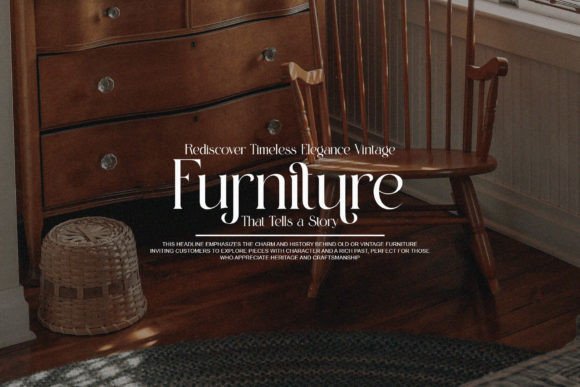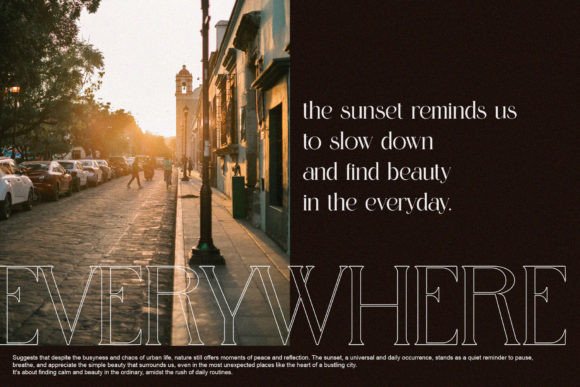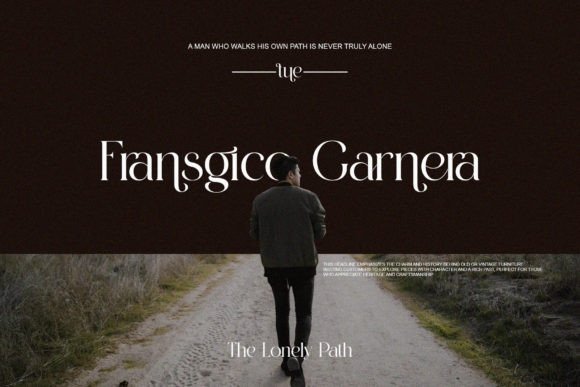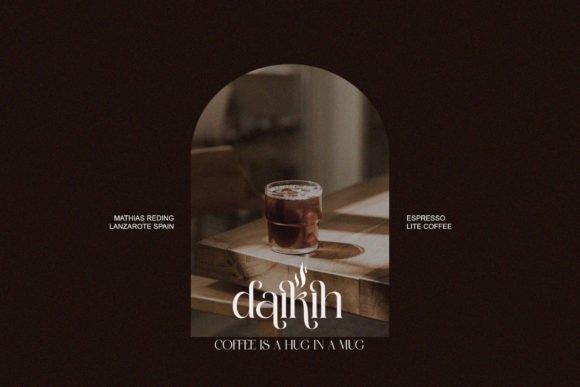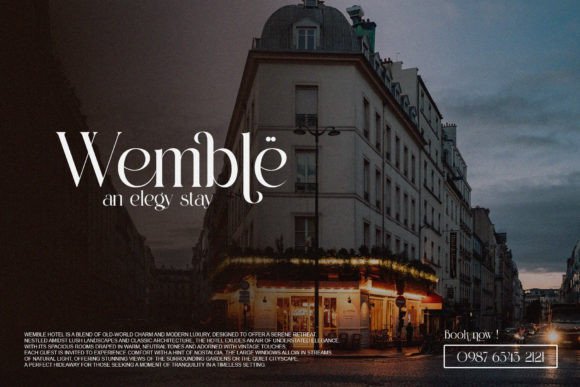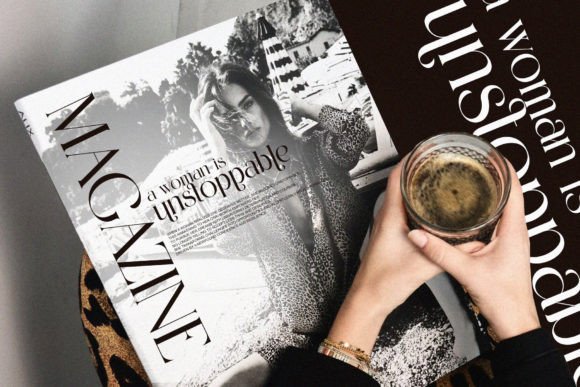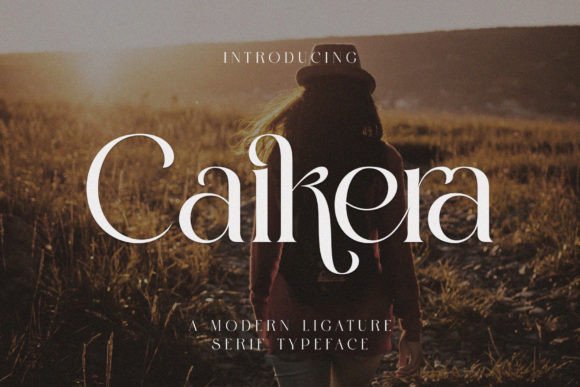
Discover the Elegance of Caikera: A Modern Serif Font
Have you ever been in the middle of a design project, and suddenly, you’re stuck on finding the perfect font? I recall a recent experience where I was working on a branding project for a wellness brand, and I just couldn’t find a font that captured the essence of their message. That was until I stumbled upon **Caikera**, a modern serif font that instantly resonated with the project’s vibe.
First Impressions: What Makes Caikera Special
Caikera is more than just a font; it’s a design element that brings a sense of freedom and natural beauty to your projects. Inspired by the soft, rolling landscapes and golden hues of serene environments, Caikera feels both grounded and graceful. Its fluid ligatures and balanced curves add an effortless elegance to any design, making it perfect for projects that require a touch of sophistication.
Here’s what I love about Caikera:
- ✨ Elegant and modern serif design
- ✅ Fluid ligatures and balanced curves for a sophisticated look
- ✅ Highly versatile for various design projects, from branding to editorial design
- ✨ Easy to read, even in smaller sizes
And here are a few quirks to consider:
- 🤔 Limited availability of certain OpenType features in some platforms
- ⚠️ May not be the best fit for very bold or heavily stylized designs
The Story Behind Caikera: Designer Inspiration
Caikera was born from a desire to capture the serene beauty of natural landscapes in a typeface. The designer, inspired by rolling hills and the golden light of sunsets, aimed to create a font that feels both organic and refined. The result is a font that not only looks elegant but also evokes a sense of calm and freedom.
| What makes Caikera unique? | Caikera’s fluid ligatures, balanced curves, and inspiration from natural landscapes make it uniquely elegant and versatile. |
| Is Caikera suitable for body text? | Absolutely! Caikera is designed to be legible and elegant, making it suitable for both headings and body text. |
Caikera is more than just a font; it’s a design companion that brings warmth, elegance, and harmony to your projects. Whether you’re a designer, crafter, or creative hobbyist, Caikera has the potential to elevate your designs with its unique blend of modernity and natural beauty. Give Caikera a try and discover how it can add a touch of sophistication to your creative endeavors.